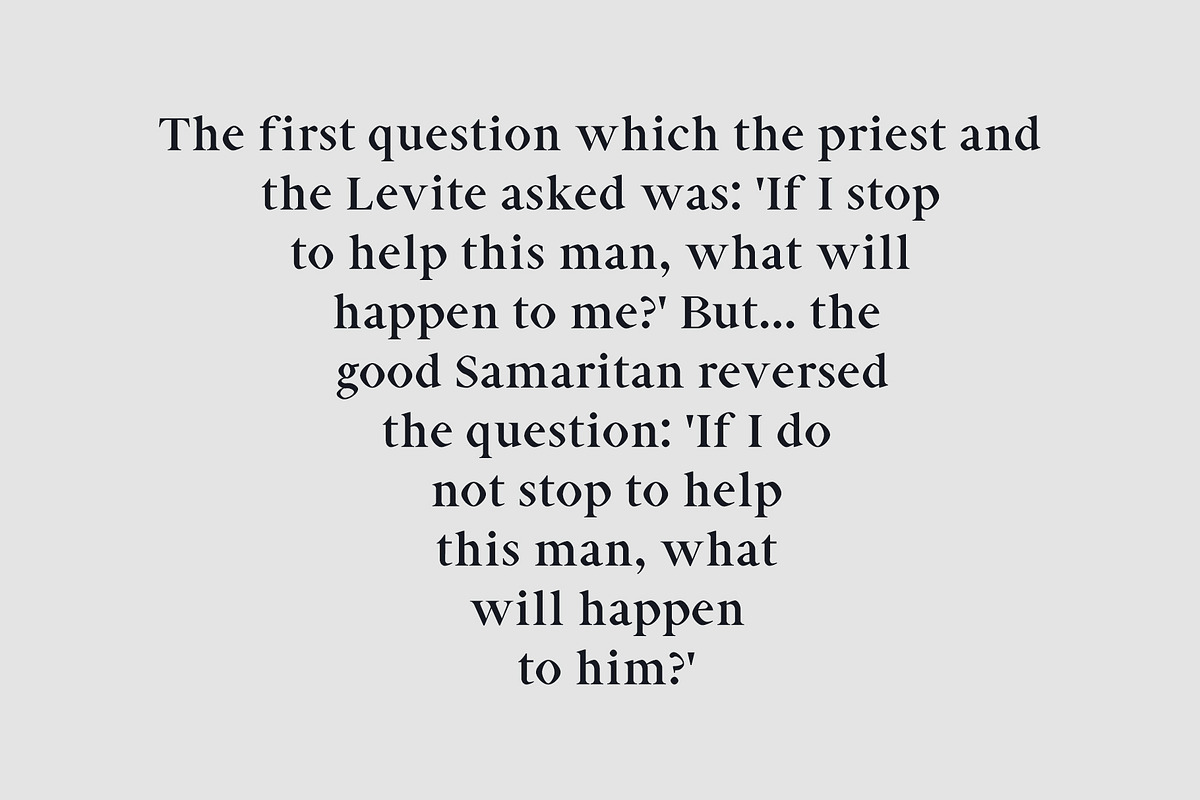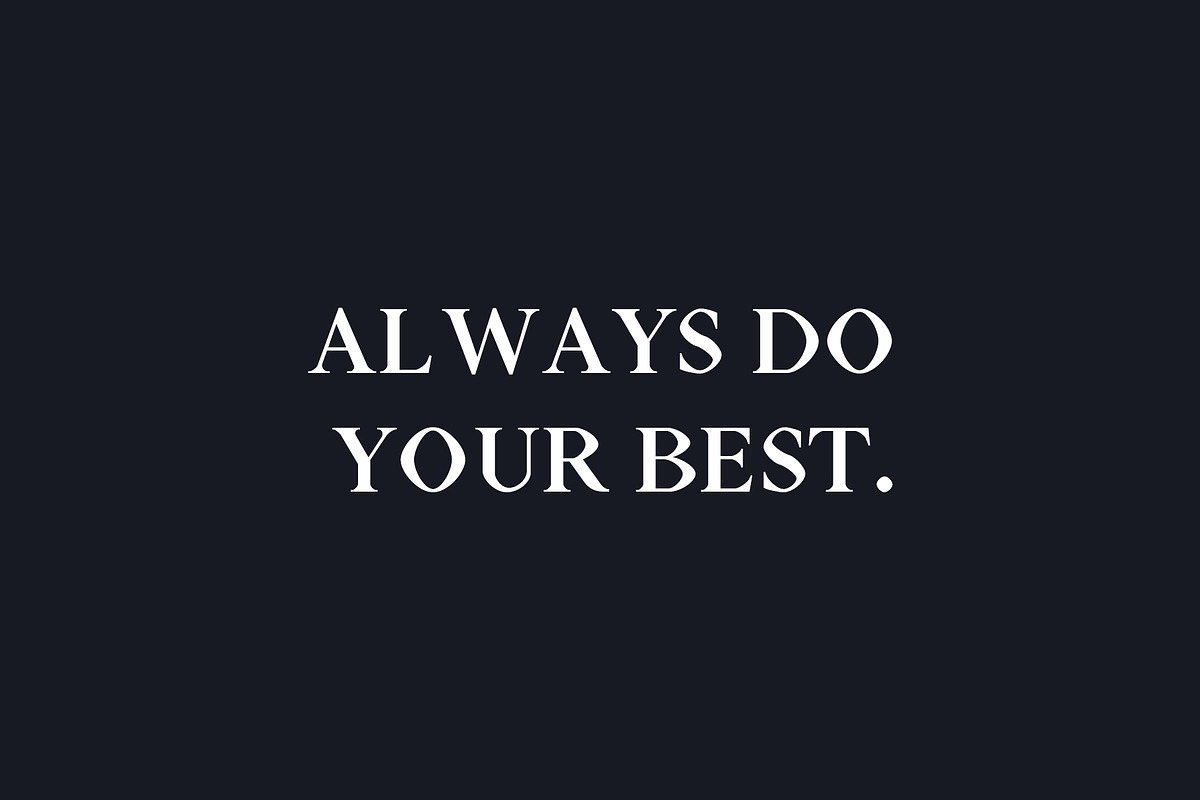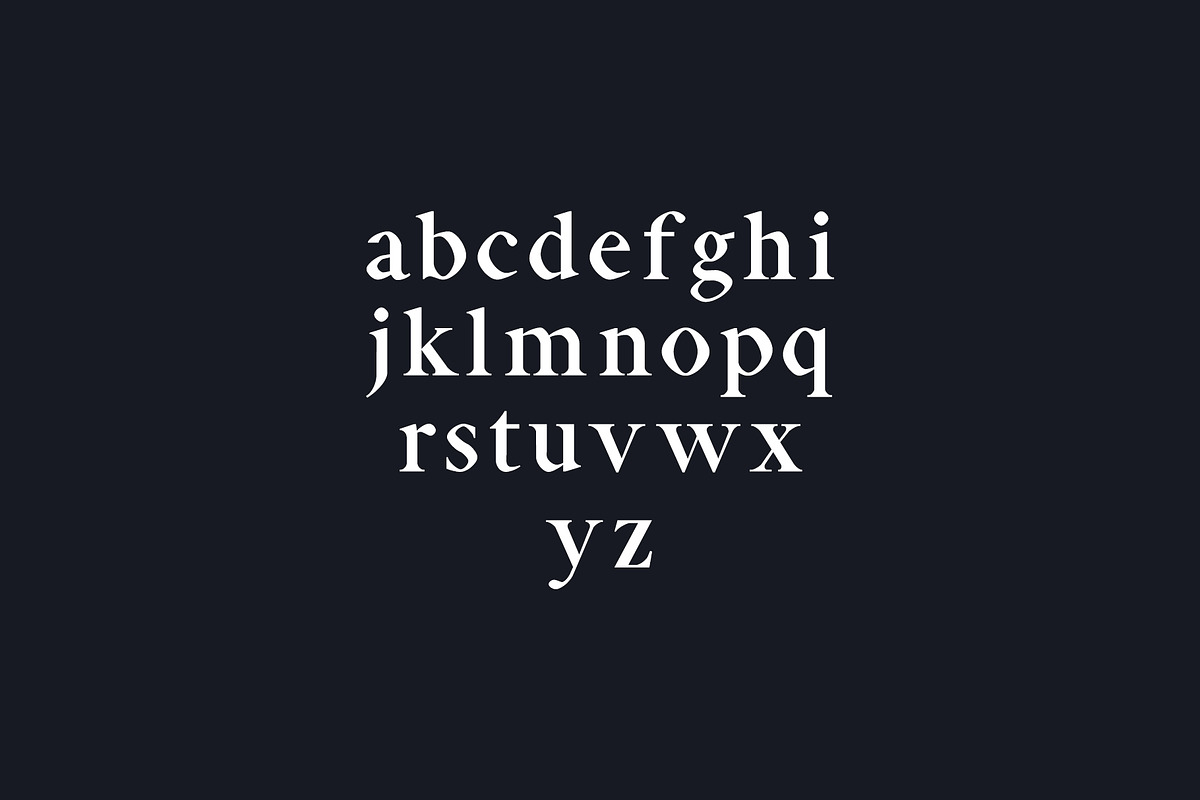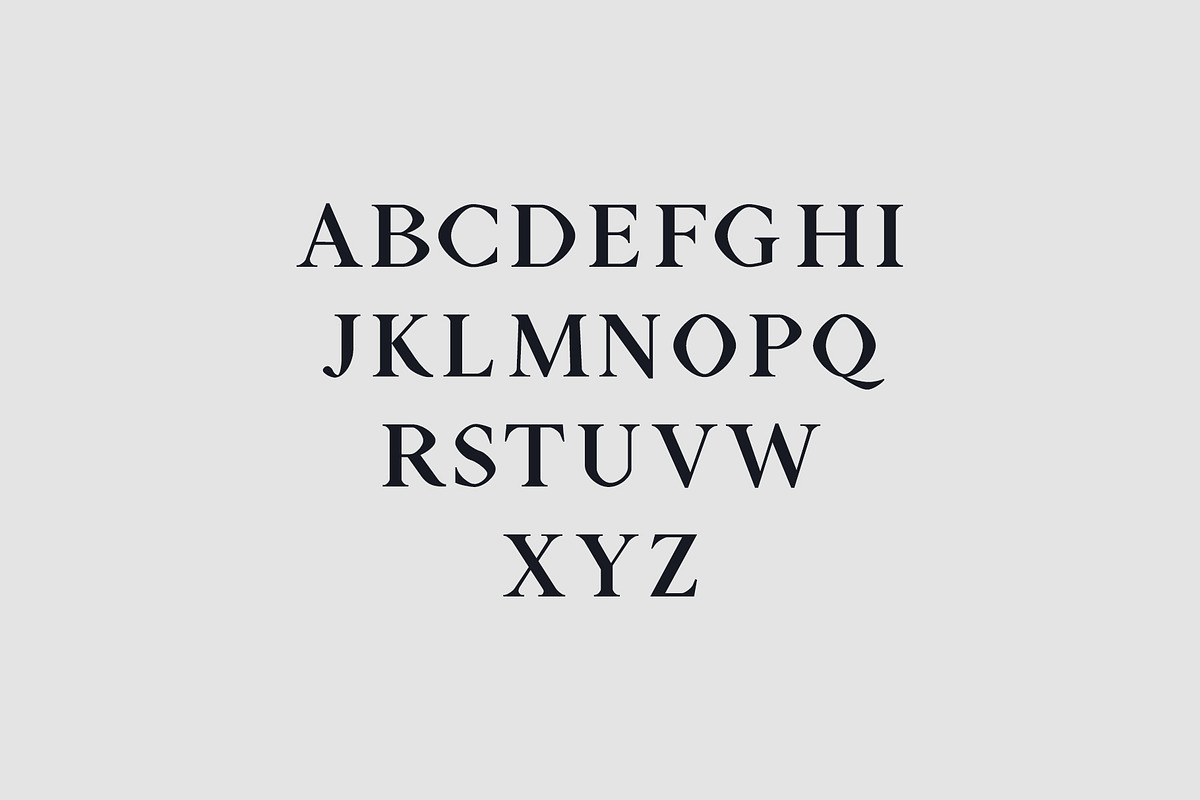
Aara Serif Font Family Pack
Aara Serif Font Family Pack by Creativetacos is a font selected for branding, posters, packaging, typography.
- Regular, Thin, Light Book, Bold and Italic Weights
Why Aara Serif Font Family Pack is worth a look
Aara Serif Font Family Pack by Creativetacos fits naturally into Branding, posters, packaging, typography.